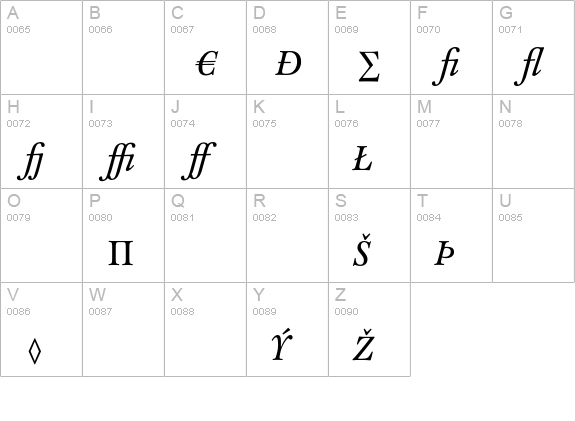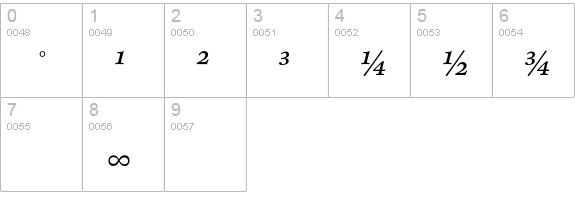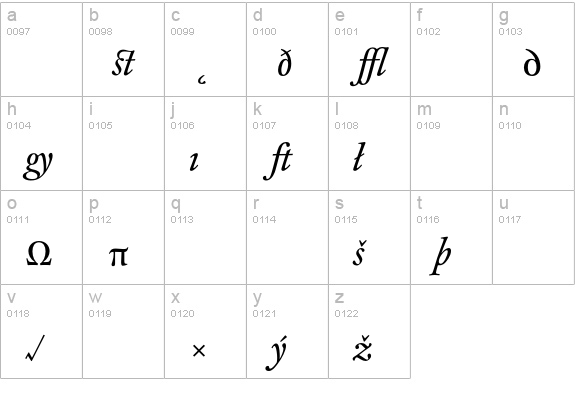
CliffordEighteen-ItalicExpert Font Details
CliffordEighteen-ItalicExpert is a sophisticated and elegant font that exudes a sense of modern style and professionalism. Its sleek and italic design adds a touch of sophistication to any project, making it perfect for high-end designs, branding, and editorial work. The clean lines and smooth curves of this font make it a perfect choice for creating a sleek and polished look. Best of all, CliffordEighteen-ItalicExpert is available for free download at FontsMarket.com. This means you can easily access this stunning font to elevate your designs without any cost. Whether you're working on a personal project or a professional design, CliffordEighteen-ItalicExpert is a versatile font that will surely make a statement. Download it today and add a touch of elegance to your creations.